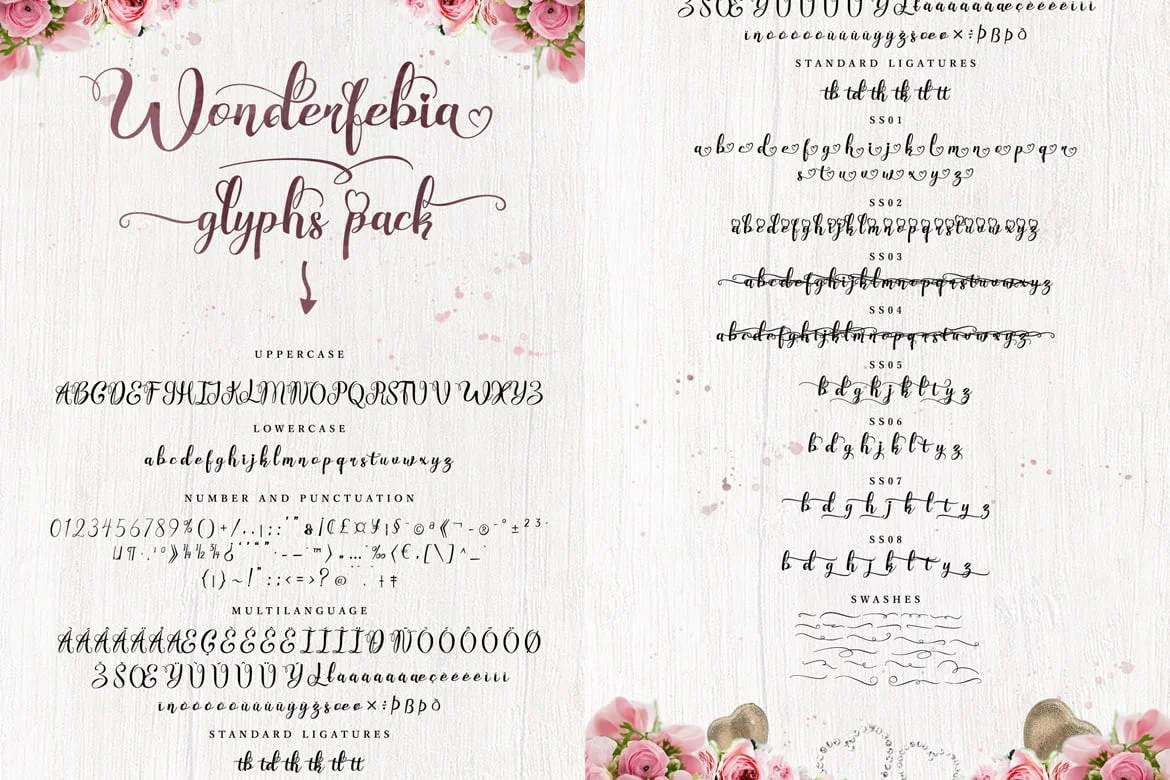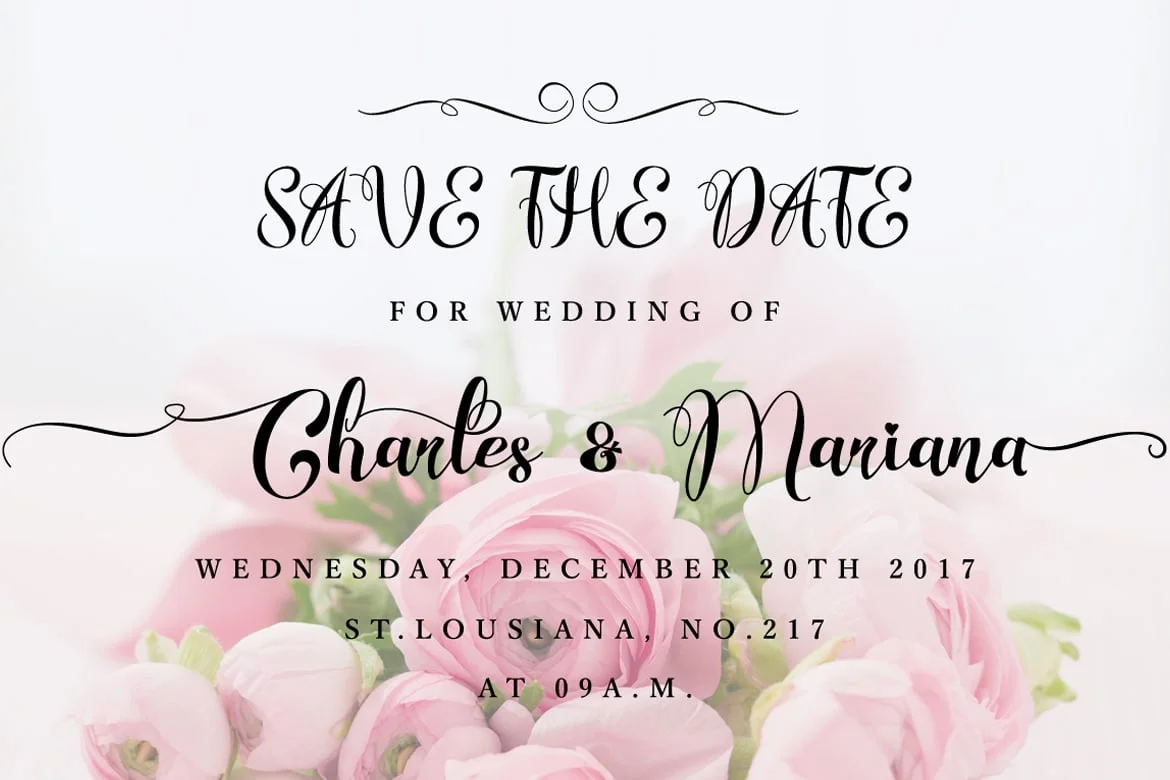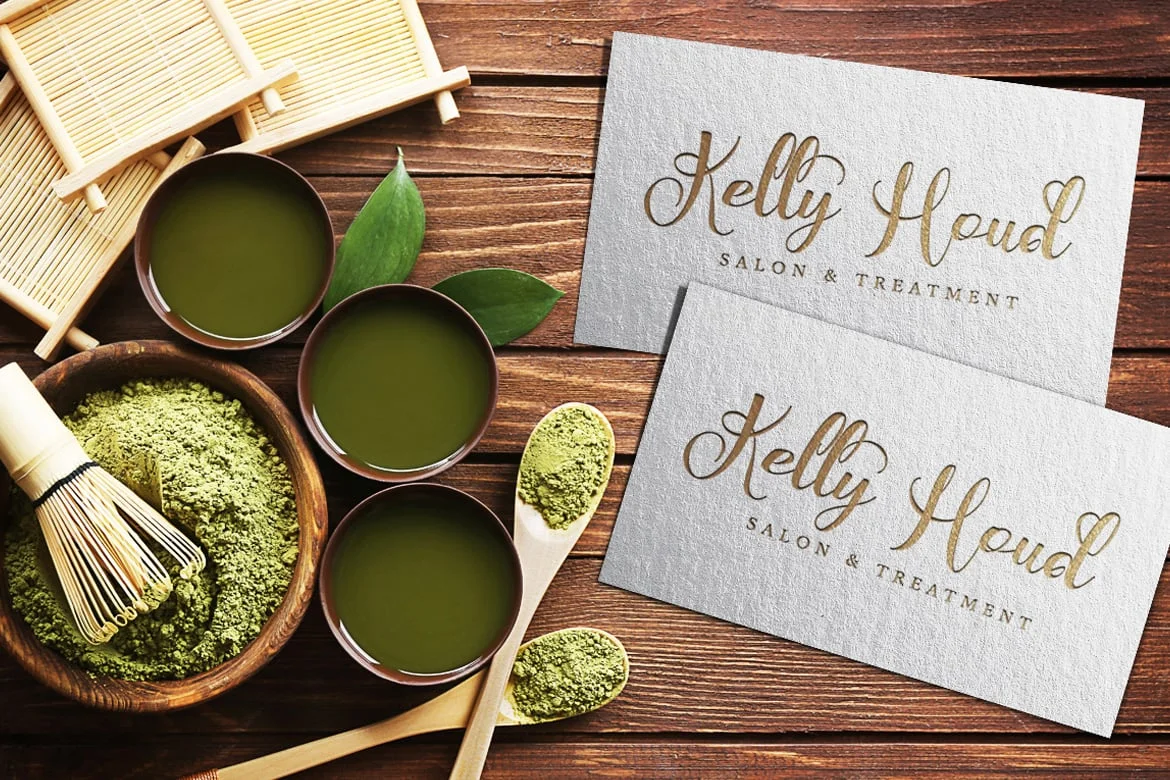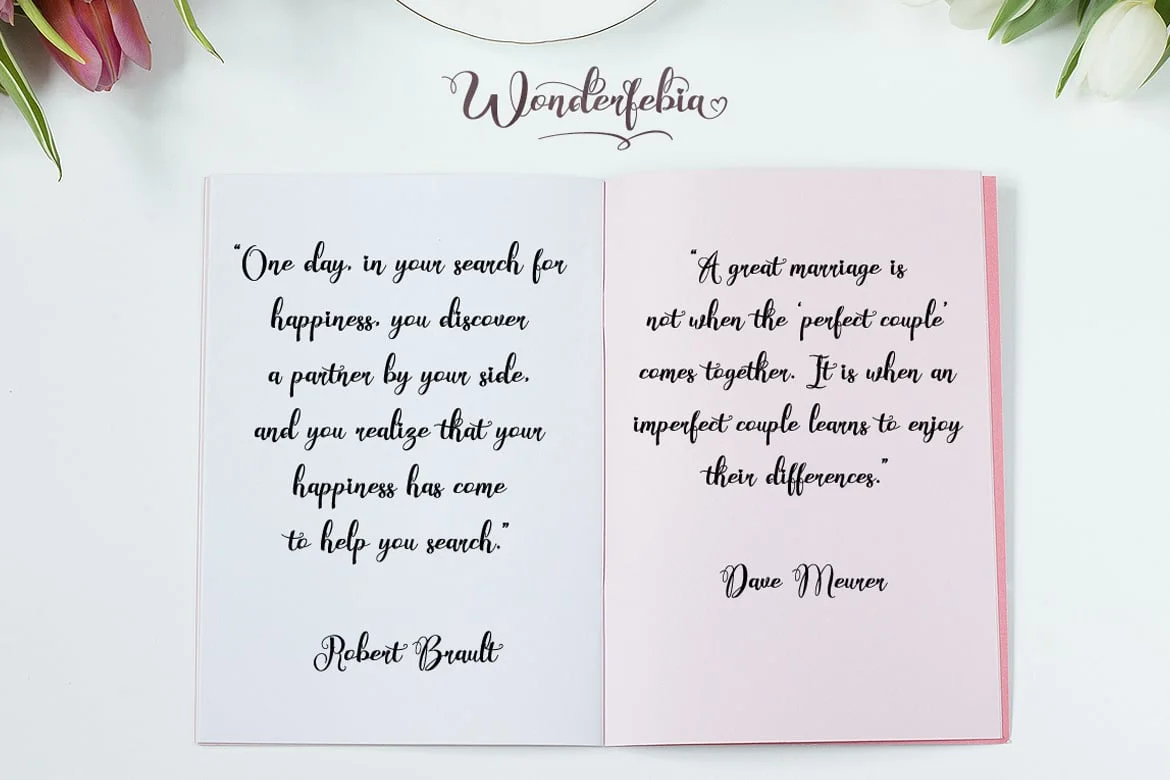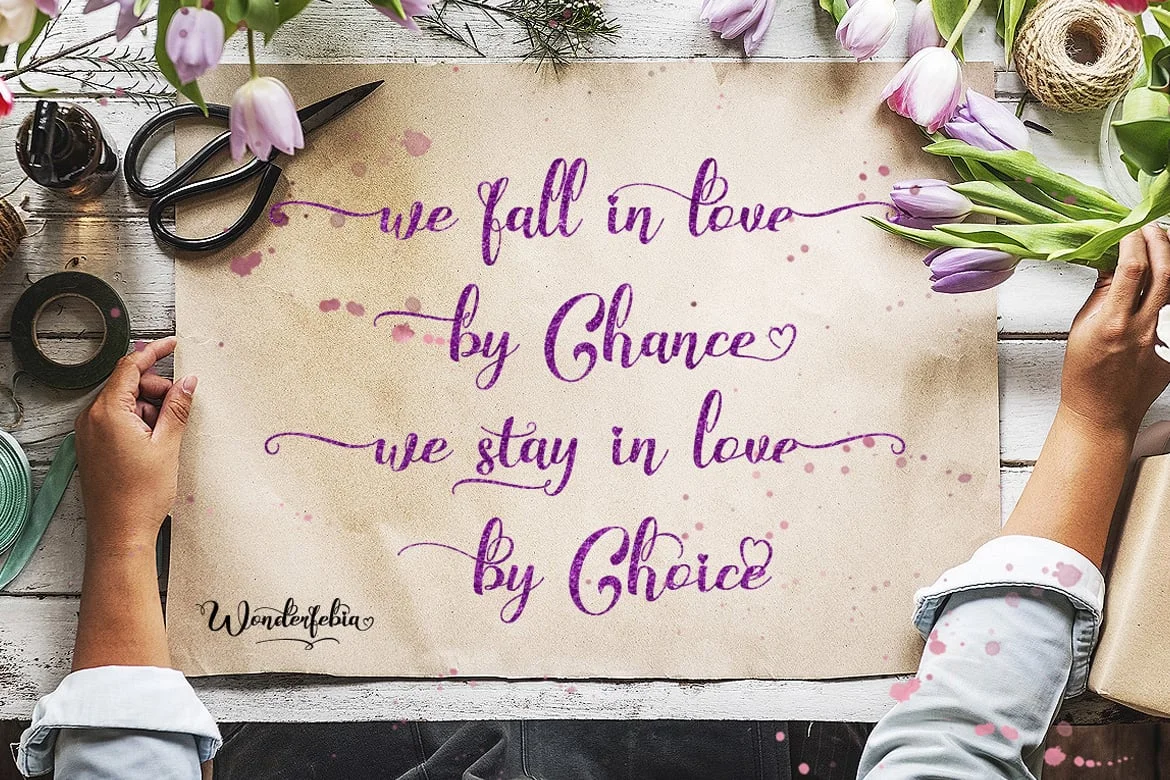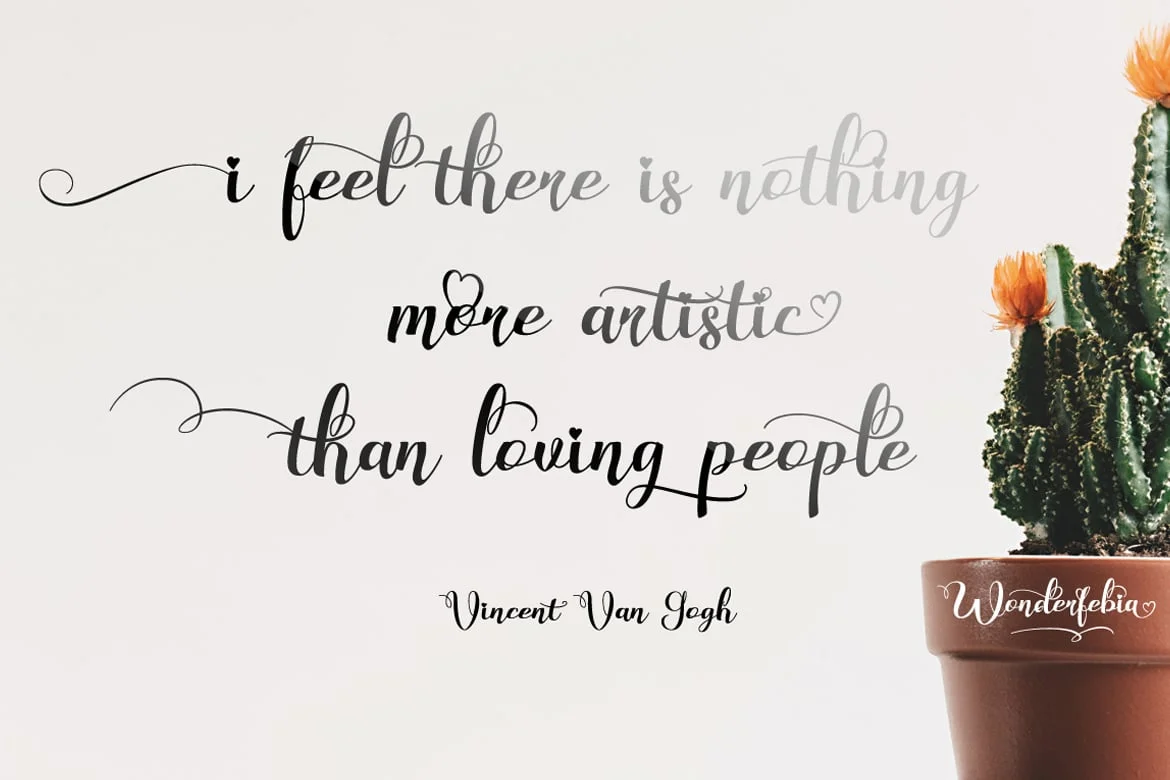
Wonderfebia - Script Wedding Font
The Wonderfebia - Script Wedding Font excels in magical design applications including enchanting wedding invitations, fairytale celebration branding, wonder-filled event logos, magical product packaging, dreamy business cards, whimsical portfolios, wonder-inspired greeting cards, magical social media graphics, fairytale event signage, and enchanting marketing materials. Its wonderous script style makes it perfect for projects requiring magical elegance that communicates enchantment and establishes fairytale brand positioning with audiences seeking extraordinary wedding experiences and magical sophistication.
What makes the Wonderfebia - Script Wedding Font truly exciting is its exceptional ability to capture the magical wonder and fairytale beauty of dream weddings through enchantingly crafted letterforms. The font features flowing, magical strokes with wonderous flourishes and fairytale proportions that create a distinctly enchanting appearance. Each character displays masterful attention to magical detail with wonder-filled curves, enchanting connections, and dreamy spacing that give text a magical, hand-lettered quality. The font's wonderous character and fairytale rhythm create an atmosphere of pure magic while maintaining elegant sophistication and wedding authenticity.
The Wonderfebia - Script Wedding Font family typically includes regular weight with extensive character coverage, featuring uppercase and lowercase letters, numerals, punctuation marks, and international characters. The typeface often incorporates stylistic alternates, contextual ligatures, and magical swashes that enhance its signature wonder. These additional elements provide designers with creative flexibility to customize text appearance and achieve more natural-looking enchanting handwriting that reflects the font's magical and wonderous character.
This enchanting signature font distinguishes itself through its remarkable balance of magic and professional elegance. Unlike ordinary fonts that lack fairytale appeal, Wonderfebia - Script Wedding Font embraces the power of magical design to create extraordinary connections with wedding audiences. The font's wonderous character makes it essential for fairytale wedding planners, magical event brands, and dream celebration businesses where creating wonder-filled experiences and magical memories is fundamental to success in luxury wedding markets.
The Wonderfebia - Script Wedding Font presents designers with an outstanding opportunity to incorporate magical elegance into their fairytale projects. From enchanted wedding venues to magical celebration brands, this font delivers the wonderous signature aesthetic that resonates with couples seeking extraordinary and magical wedding experiences. Its enchanting appeal ensures your designs communicate pure wonder while the signature styling adds distinctive personality that reflects magical romance and fairytale sophistication in any application requiring enchanting typography solutions.